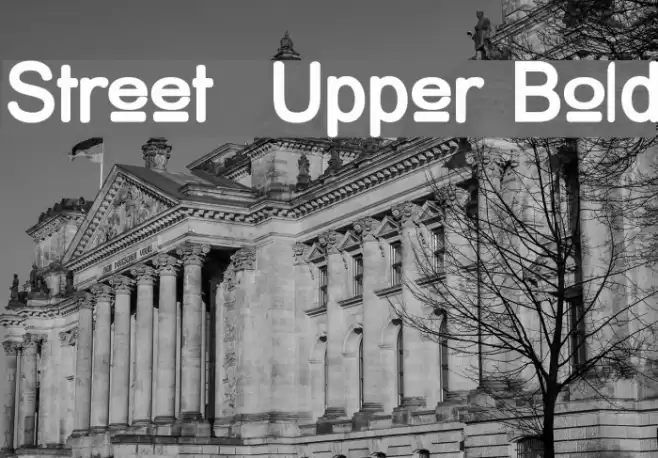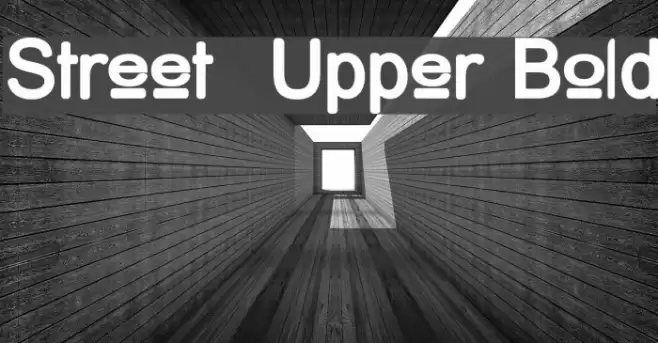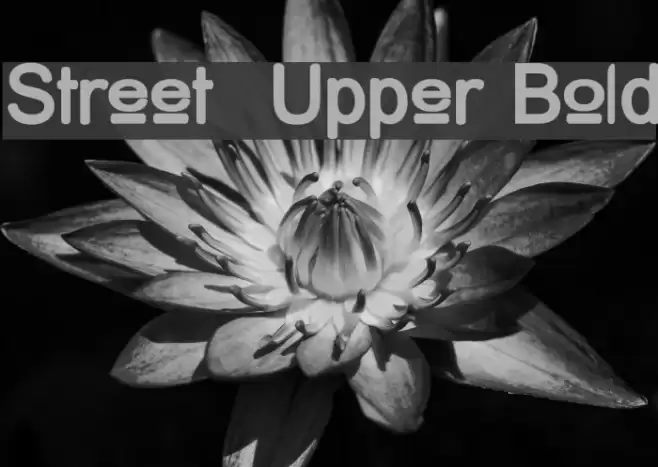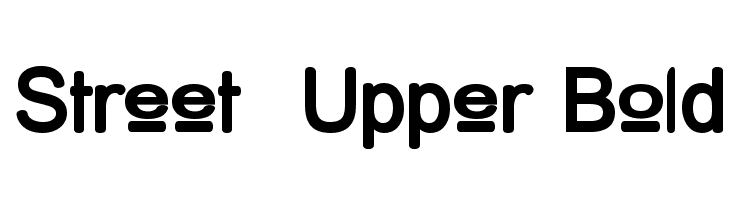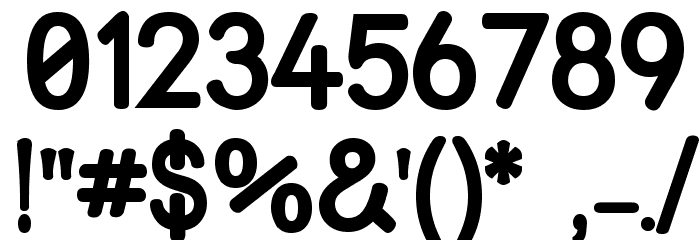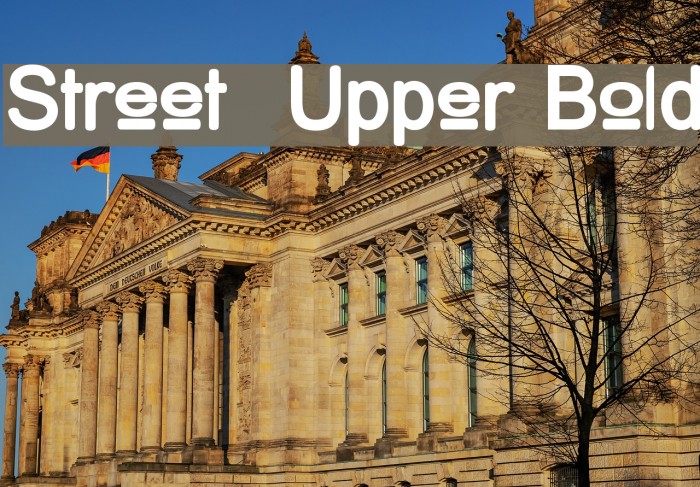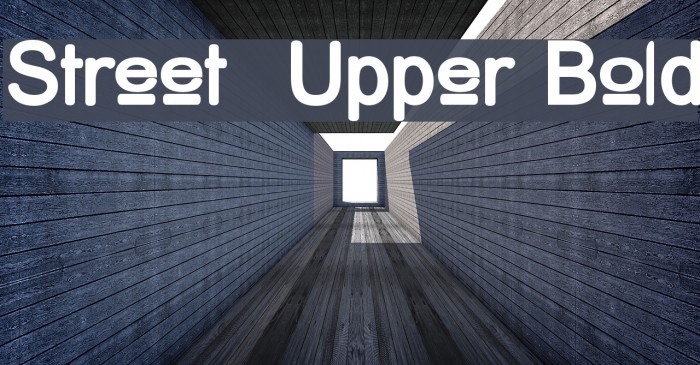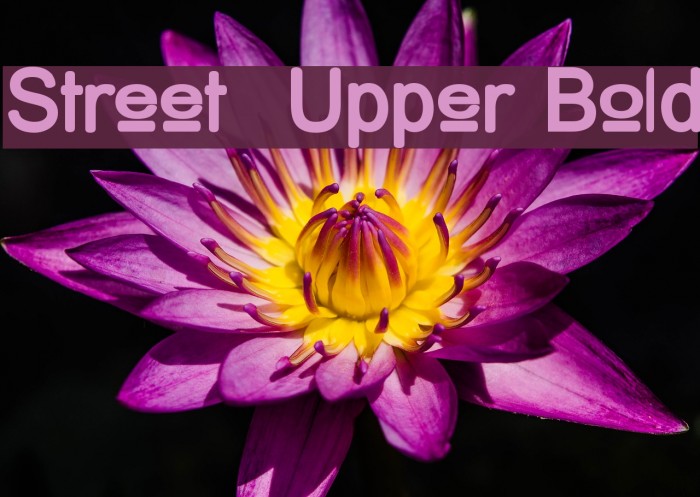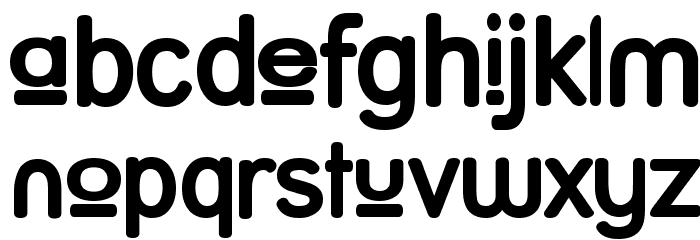
Street Upper Bold
This font features a bold and rounded sans-serif style, characterized by its smooth curves and uniform stroke width. The letters are well-proportioned with a modern and clean appearance, making it highly legible. The rounded edges give it a friendly and approachable feel, suitable for various design applications. The numbers and special characters maintain the same boldness and rounded style, ensuring consistency across all glyphs. This font is versatile and can be used effectively in both digital and print media.
A bold, rounded sans-serif font with smooth curves and a modern appearance.
- Proposed Projects: Ideal for branding, signage, headlines, and digital interfaces where a modern and friendly look is desired.
- Use Case: Headlines, Logos, Signage